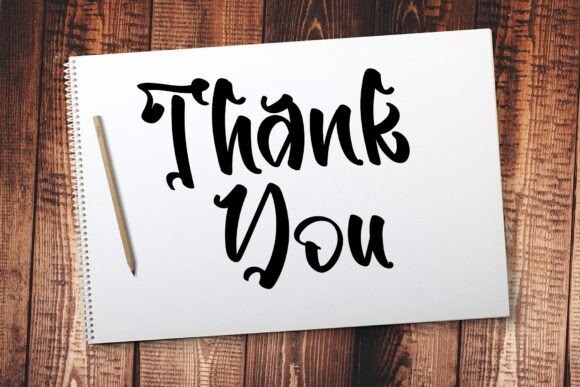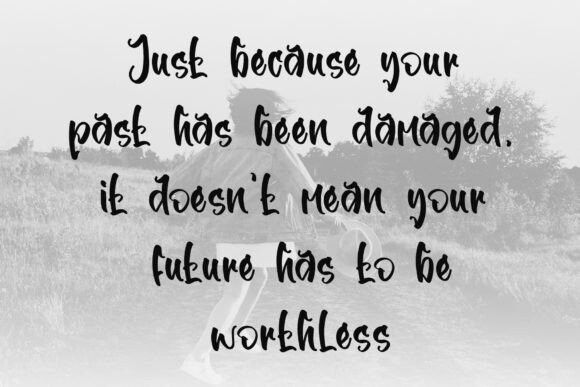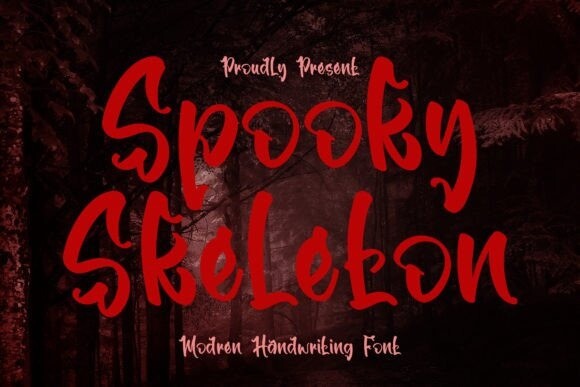
Spooky Skeleton Font
Designer: 21Design
Spooky Skeleton Font is a sweet and a bit quirky handwritten font. Its natural and unique style makes it incredibly fitting to a large pool of designs. The only limit is your imagination!